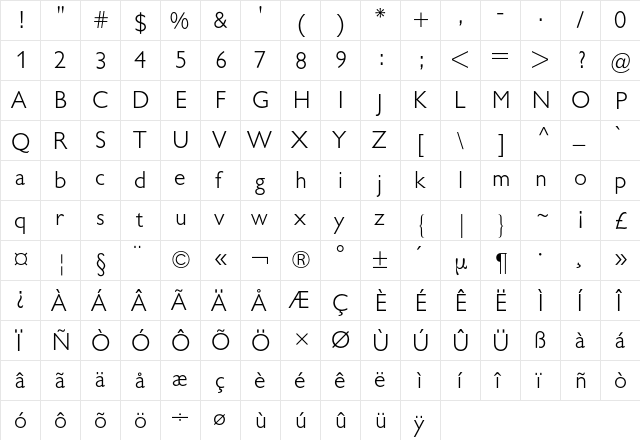
Gill Sans BQ Regular
Design Context for Gill Sans BQ Typeface
Gill Sans BQ is a composed and adaptable typeface that performs quietly and consistently across a wide range of design contexts.